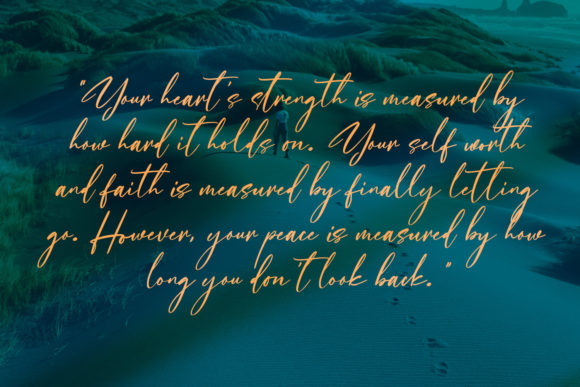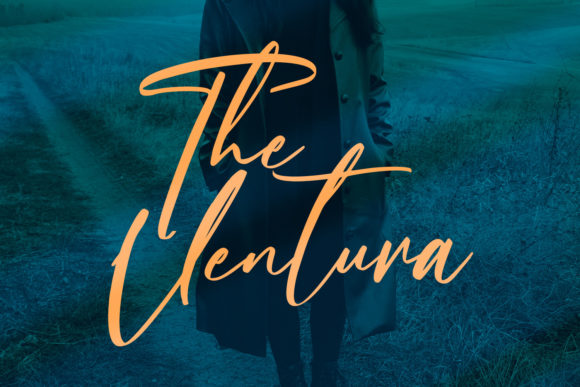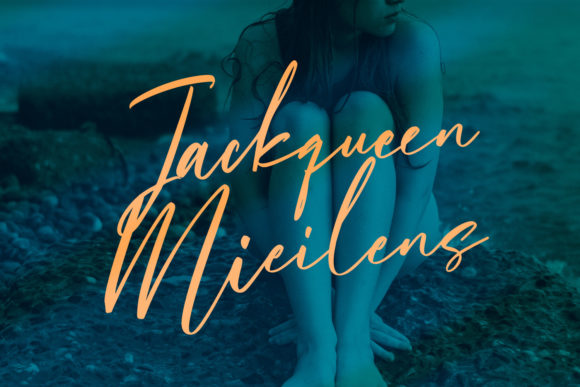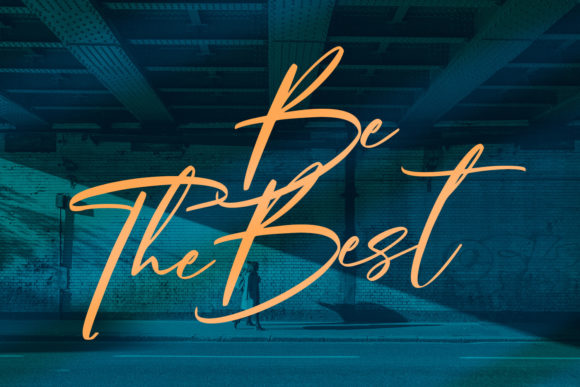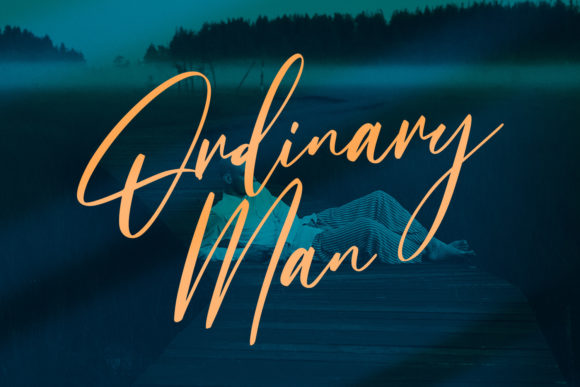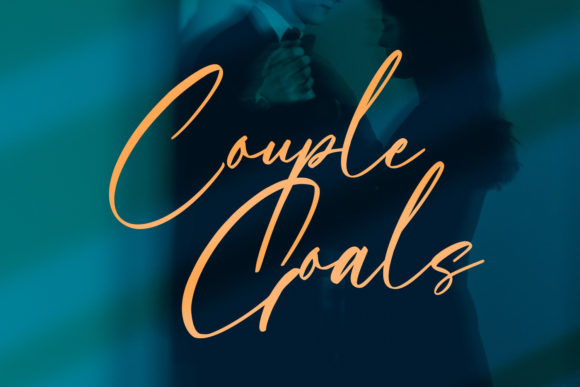
Introducing Chasterlize Script Font: Elevate Your Design with Elegance and Flair
In the realm of typography, script fonts hold a special place for their elegance, personality, and the unique touch they bring to any design project. Among these, the Chasterlize Script Font stands out as a versatile and captivating choice for designers and crafters alike. This article delves into the features, applications, and benefits of using Chasterlize in your creative endeavors.
What is Chasterlize Script Font?
Chasterlize is a slanted signature script font that brings a blend of sophistication and playfulness to the table. Characterized by regular contrast strokes, fun characters, and unique ligatures and alternates, it offers a rich palette of typographic elements that can elevate any design.
Key Features of Chasterlize
- Slanted Signature Style: The font’s slanted posture gives it a dynamic and informal feel, perfect for adding a personal touch to your designs.
- Regular Contrast Strokes: The contrast in stroke widths adds depth and character to the font, making it highly readable and visually appealing.
- Fun Characters: Chasterlize includes a set of fun and quirky characters that can add a whimsical touch to your text.
- Unique Ligatures and Alternates: The inclusion of ligatures and alternate characters allows for a high degree of customization, enabling designers to create unique and complex text arrangements.
Applications of Chasterlize Script Font
Chasterlize’s versatility makes it suitable for a wide range of applications, including:
- Logo Design: The font’s distinctive style makes it an excellent choice for logos that require a touch of elegance and personality.
- Social Media Graphics: Use Chasterlize to create eye-catching social media posts, stories, and banners that stand out.
- Movie and Book Titles: The font’s cinematic feel makes it perfect for movie titles, book covers, and any project requiring a sophisticated yet engaging typography.
- Short and Long Text: Whether you’re designing a headline or a paragraph of text, Chasterlize’s readability and charm make it suitable for both short and long texts.
Benefits of Using Chasterlize
Choosing Chasterlize for your design projects comes with several benefits:
- Elegance and Personality: It adds a unique blend of sophistication and fun to your designs.
- Versatility: Suitable for a wide range of projects, from digital content to print materials.
- Customization: The availability of ligatures and alternates allows for highly customized typography.
- Readability: Despite its decorative nature, Chasterlize maintains a high level of readability, making it practical for various uses.
Tips for Using Chasterlize Effectively
To make the most out of Chasterlize, consider the following tips:
- Experiment with Sizes: Play with different font sizes to emphasize certain words or phrases.
- Mix and Match: Combine Chasterlize with other fonts for a layered look, but ensure they complement each other.
- Utilize Ligatures and Alternates: Take advantage of the unique ligatures and alternates to add complexity and interest to your text.
- Consider Color: Choose colors that enhance the font’s features and align with your overall design aesthetic.
Chasterlize Script Font is a dynamic and elegant typeface that can add a touch of sophistication and whimsy to any design project. Its versatility, combined with its unique features, makes it an excellent choice for designers and crafters looking to elevate their work. Whether you’re creating a logo, social media content, or a book title, Chasterlize offers the perfect blend of style and readability. Explore the possibilities of Chasterlize and discover how it can transform your designs.